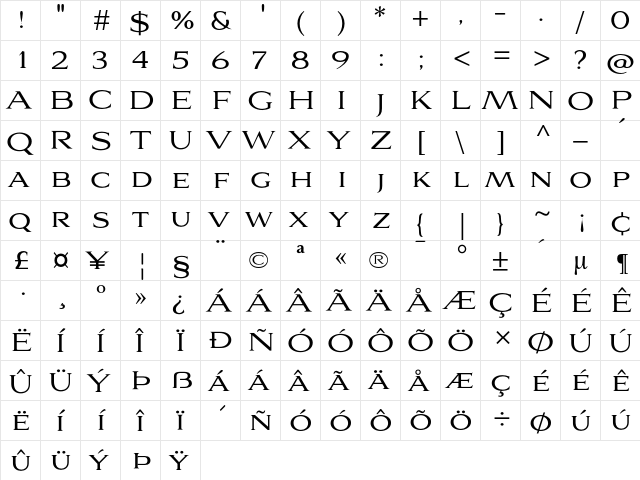
Aviano Serif Light Light
| Foundry | Jeremy Dooley |
Design Context for Aviano Serif Light Typeface
Aviano Serif Light brings classic typographic sensibility to the table — its serifs and measured letterforms reflect centuries of print heritage. The delicate stroke weight brings airiness and refinement to layouts.
Pro Tip: Use Aviano Serif Light with generous line-spacing for the most refined reading experience — its light weight benefits from room between lines.